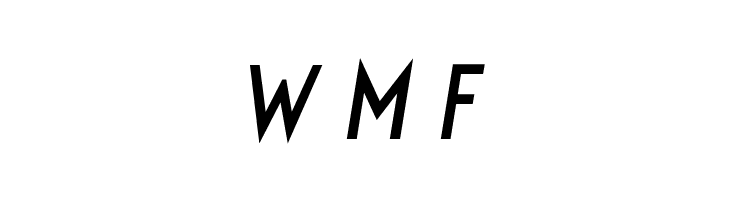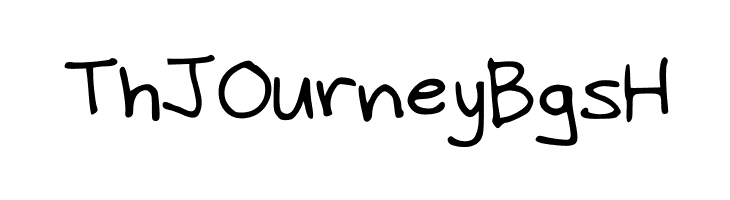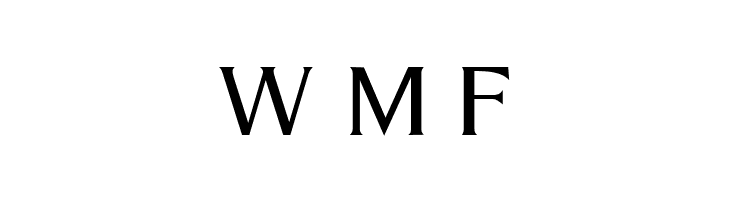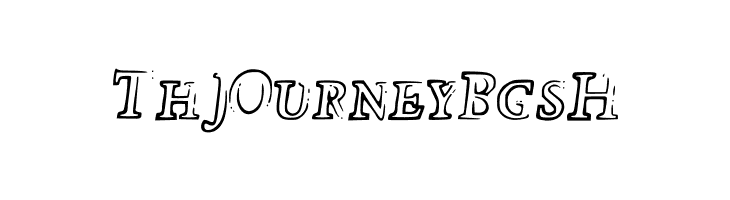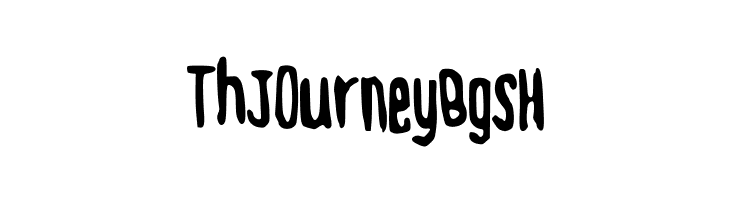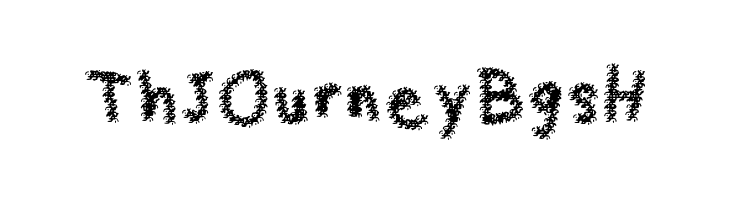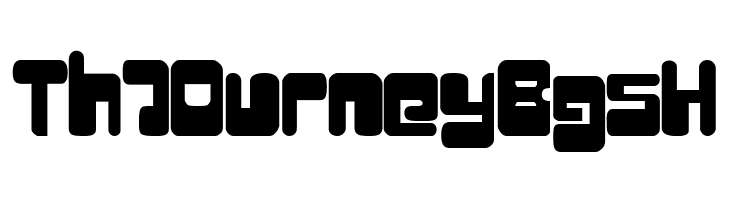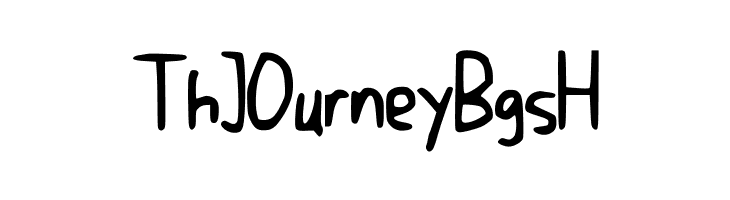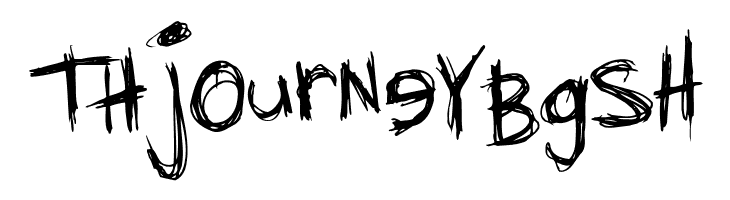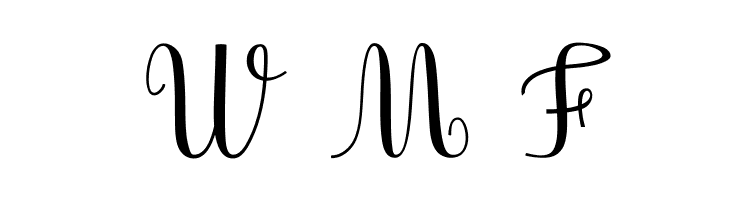
A sleek, modern italic font with clean lines and a professional look.
A classic serif font with elegant, sharp serifs and balanced stroke contrast.
A whimsical, decorative font with playful curls and swirls.
A playful, handwritten font with a casual and dynamic style.
A bold, handwritten font with a lively and personal style.
A bold, expressive handwritten font with flowing, ink-like strokes.
A playful, handwritten font with smooth, flowing lines and a casual feel.
A playful, informal handwritten font with a lively and dynamic style.
A modern, sophisticated font with clean lines and balanced proportions.
A graceful cursive font with fluid, interconnected strokes and elegant flourishes.
An elegant, bold cursive font with flowing, interconnected letters and decorative swirls.
An elegant script font with flowing, interconnected characters and decorative flourishes.
A bold, brush-style font with a casual, artistic flair.
A playful, hand-drawn font with dynamic and irregular strokes.
A playful, handwritten font with fluid strokes and a casual style.
A playful handwritten font with fluid, connected strokes.
A bold, organic font with wavy, hand-drawn edges and a whimsical style.
A playful, bold handwritten font with a casual and friendly style.
A playful, casual handwritten font with irregular strokes and a lively feel.
A playful, handwritten font with rounded, consistent strokes.
A playful, bold handwritten font with rounded, irregular characters.
A playful, handwritten font with fluid, cursive strokes and a creative flair.
A playful, handwritten font with irregular strokes and a casual style.